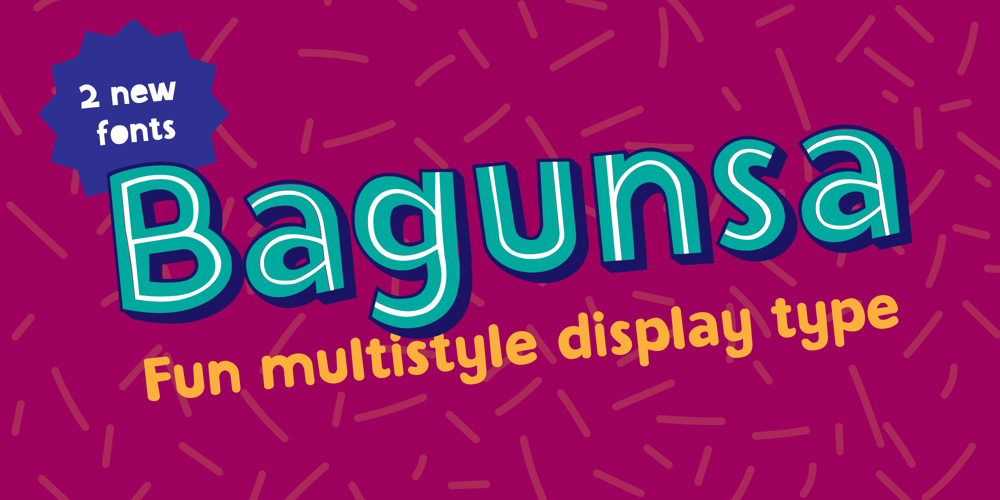
Bagunsa Font Family was designed by Pedro Biz and published by Turto Studio. Bagunsa contains 7 styles and family package options. Bagunsa is a multilayer fun party play sans font. It intend to be an ongoing family with maybe infinite possible styles.